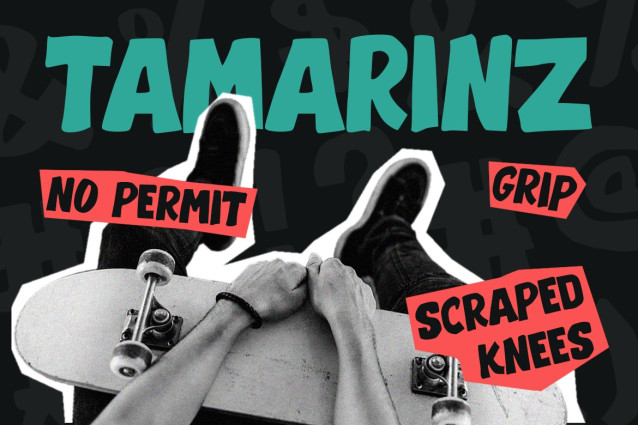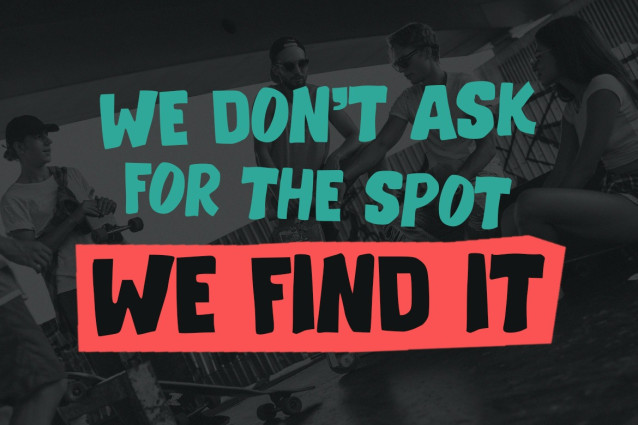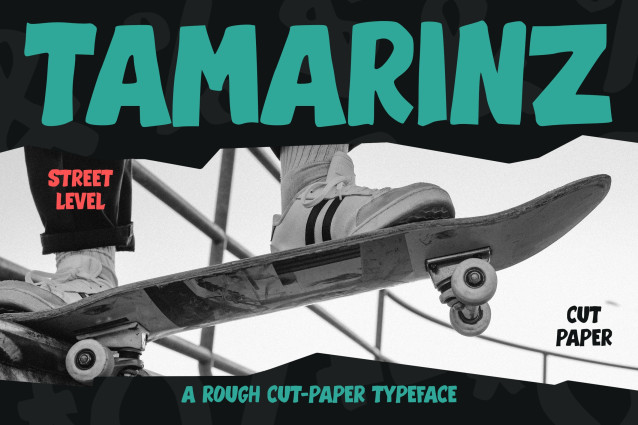
Instagram Font Tamarinz is a raw and energetic urban display font built to bring street culture, skateboard attitude, and rebellious personality into your designs. First, its bold handwritten strokes and rough-edged shapes create an authentic DIY aesthetic. At the same time, the chunky letterforms deliver strong visual impact, making headlines instantly stand out. Moreover, Tamarinz feels natural, expressive, and slightly gritty, so it works especially well with urban photography, skate graphics, and modern streetwear visuals. As a result, ordinary words can become powerful graphic statements with plenty of attitude.
Tamarinz is designed for creatives who want typography that feels bold, youthful, and unapologetically urban. For example, use it for skateboard branding, streetwear collections, posters, stickers, merchandise, album covers, event graphics, social media campaigns, and lifestyle branding. Furthermore, its rough personality pairs perfectly with distressed textures, collage compositions, action photography, bold colors, and experimental layouts. Because of this, you can easily create visuals that feel energetic, authentic, and connected to contemporary street culture. Likewise, Tamarinz is a great choice when clean and predictable typography simply feels too safe.